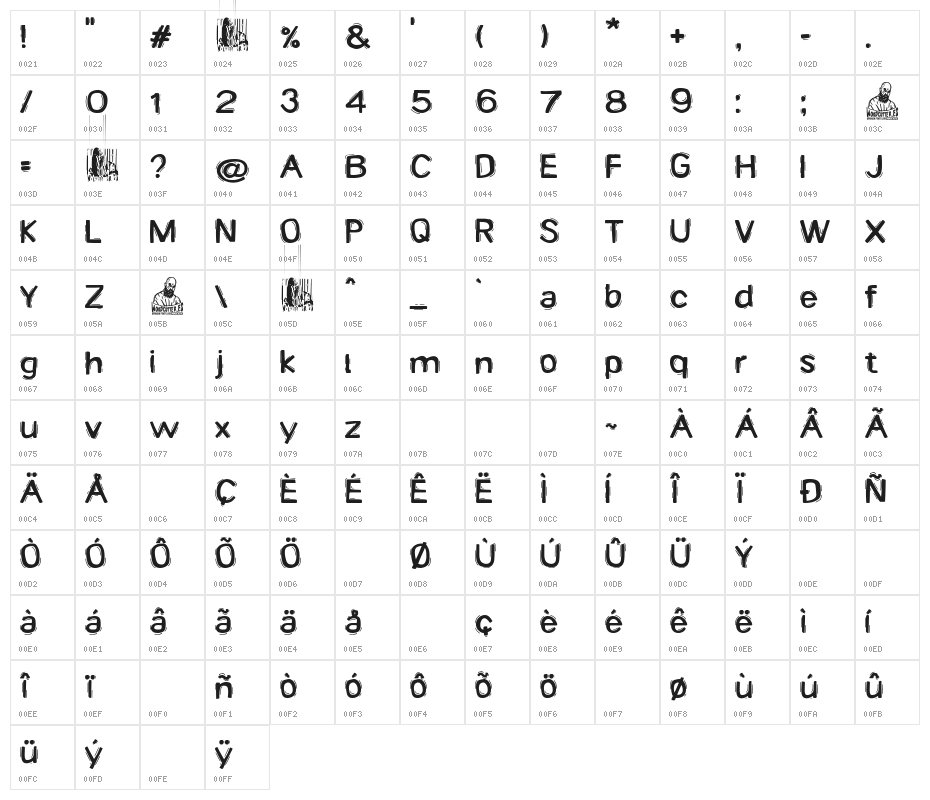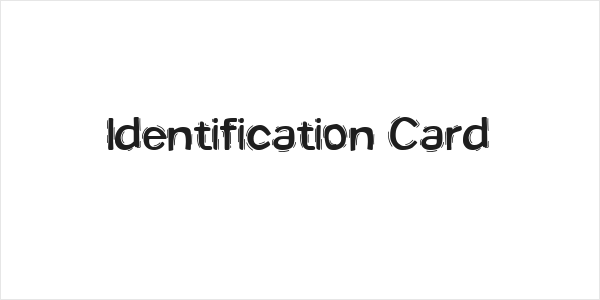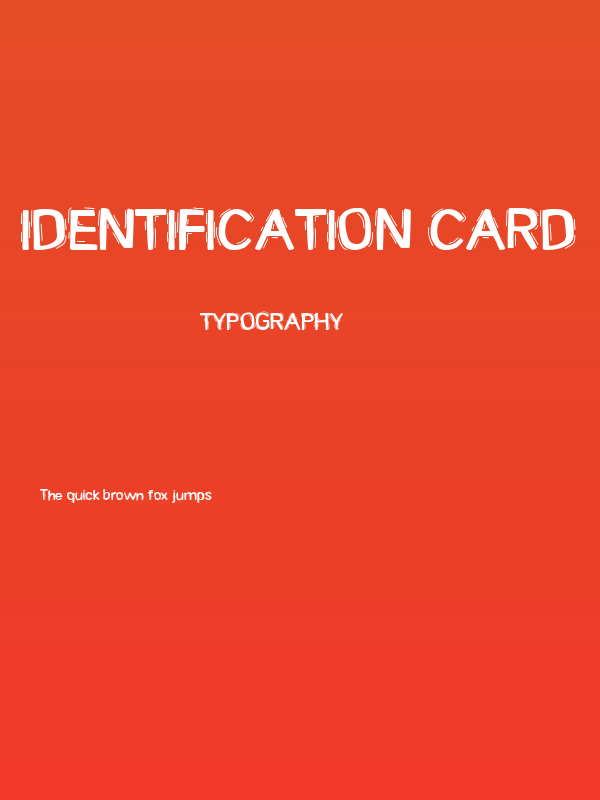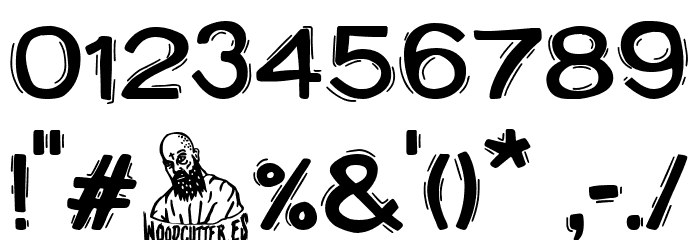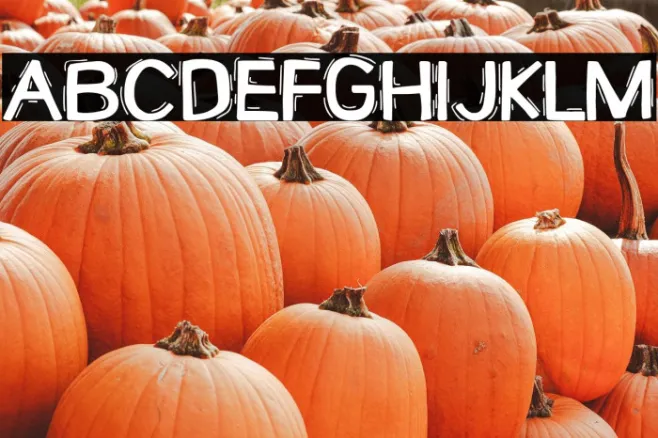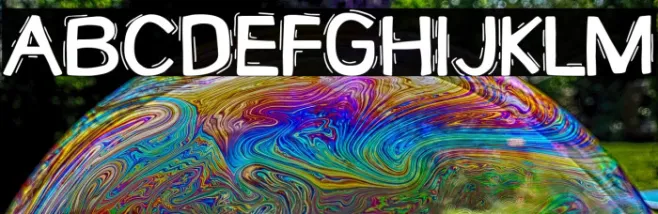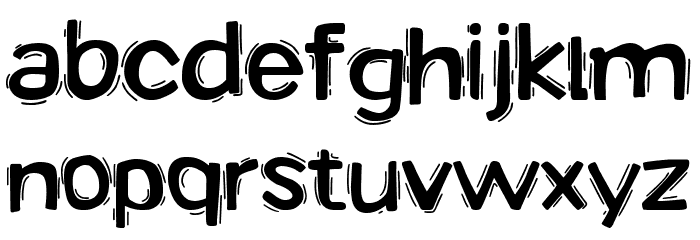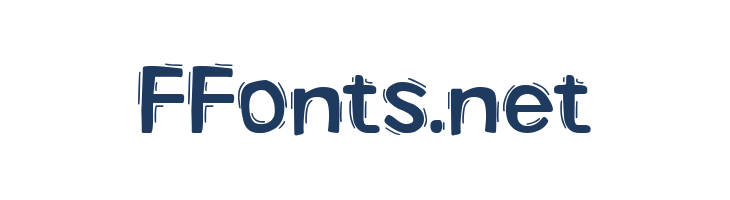
Identification Card Font
Identification Card Description
This font features a bold and dynamic style with a hand-drawn, sketch-like appearance. The characters are outlined with a rough, textured edge, giving them a unique and artistic look. The uppercase and lowercase letters maintain a consistent style, with rounded edges and a playful, informal vibe. Numbers and special characters follow the same design, ensuring a cohesive appearance across all text. The font's distinctive style makes it stand out, ideal for creative projects that require a touch of personality and flair.
| Proposed Projects | Ideal for posters, artistic designs, branding, and creative projects that require a unique and playful touch. |